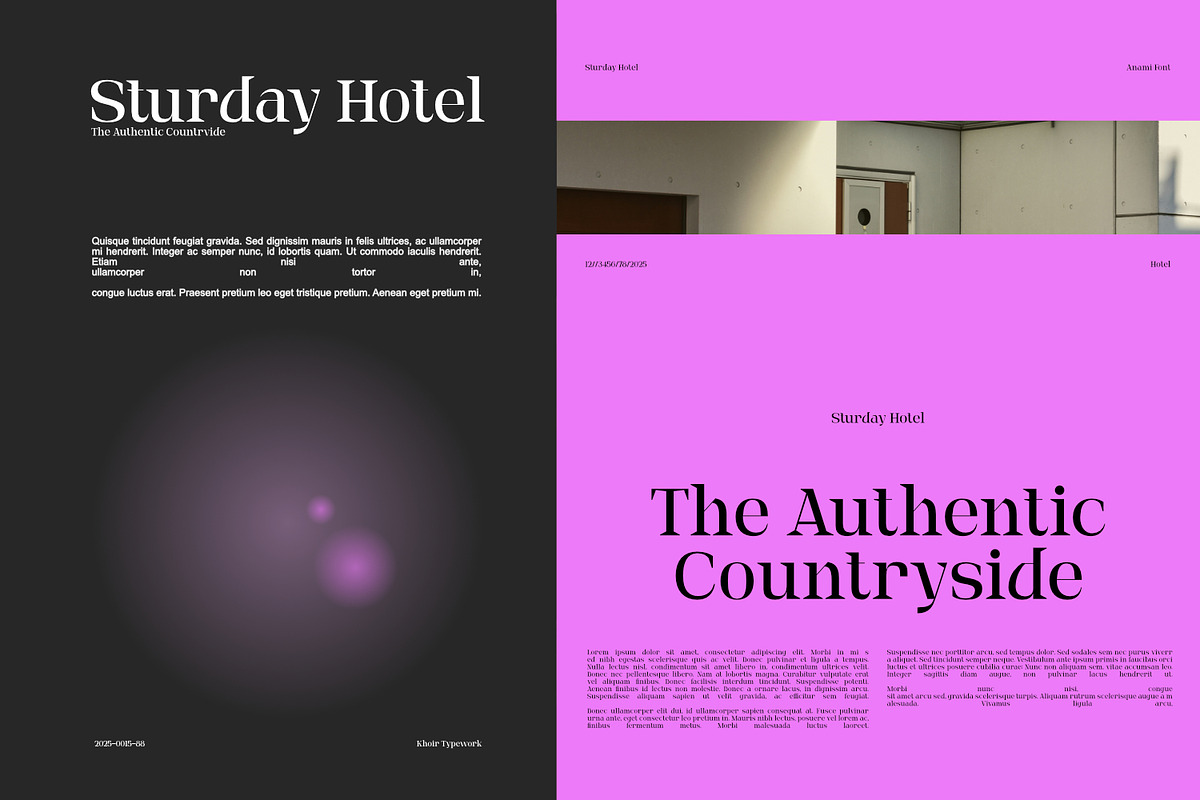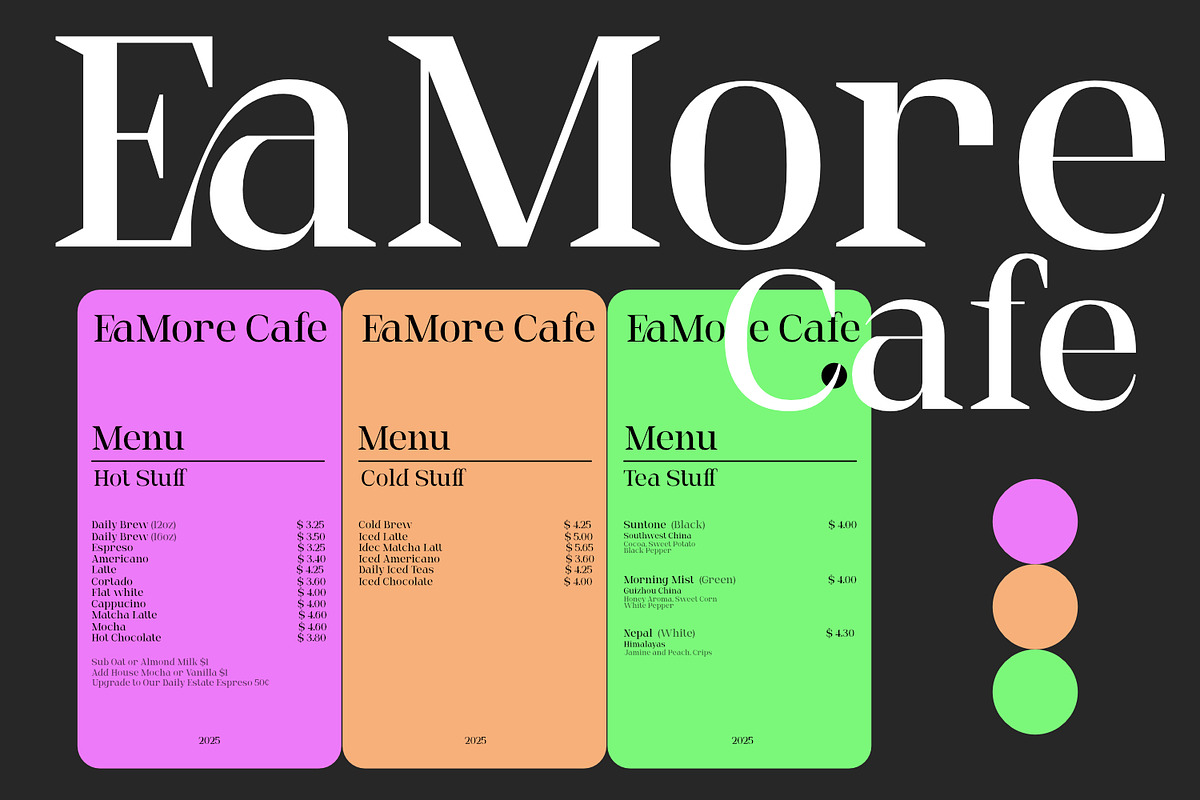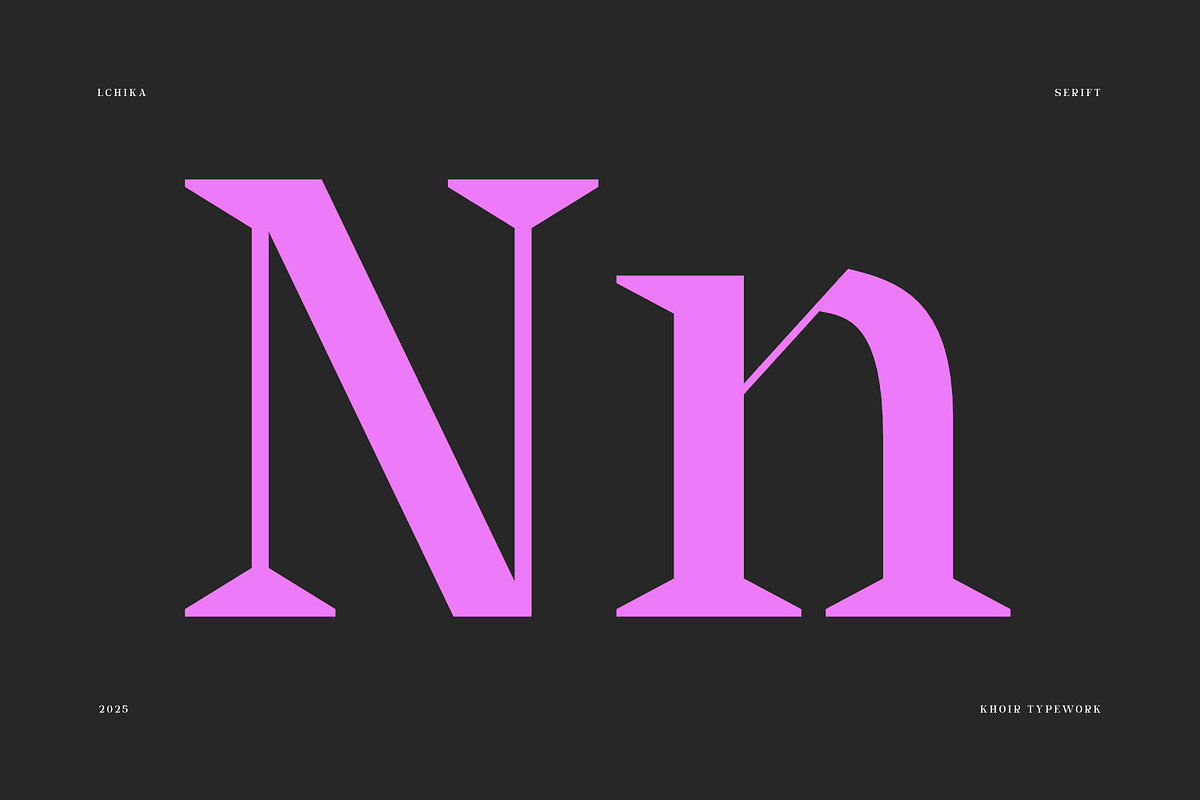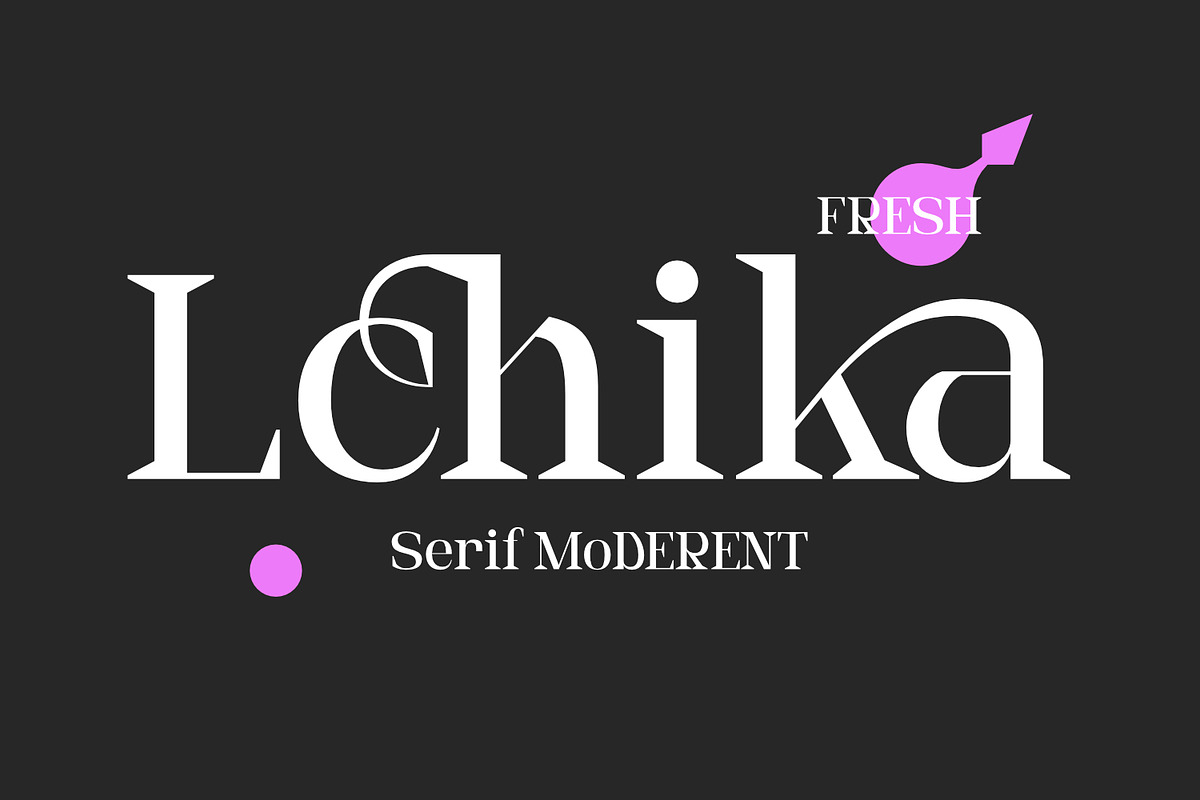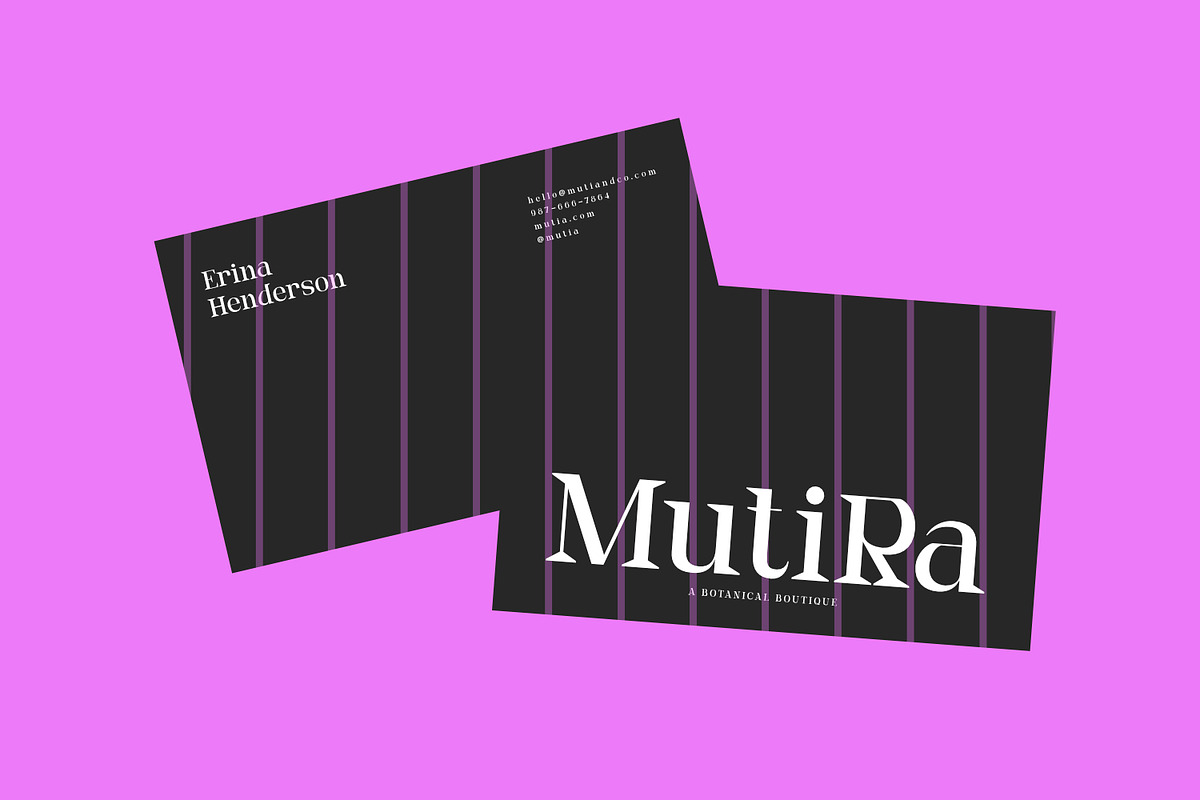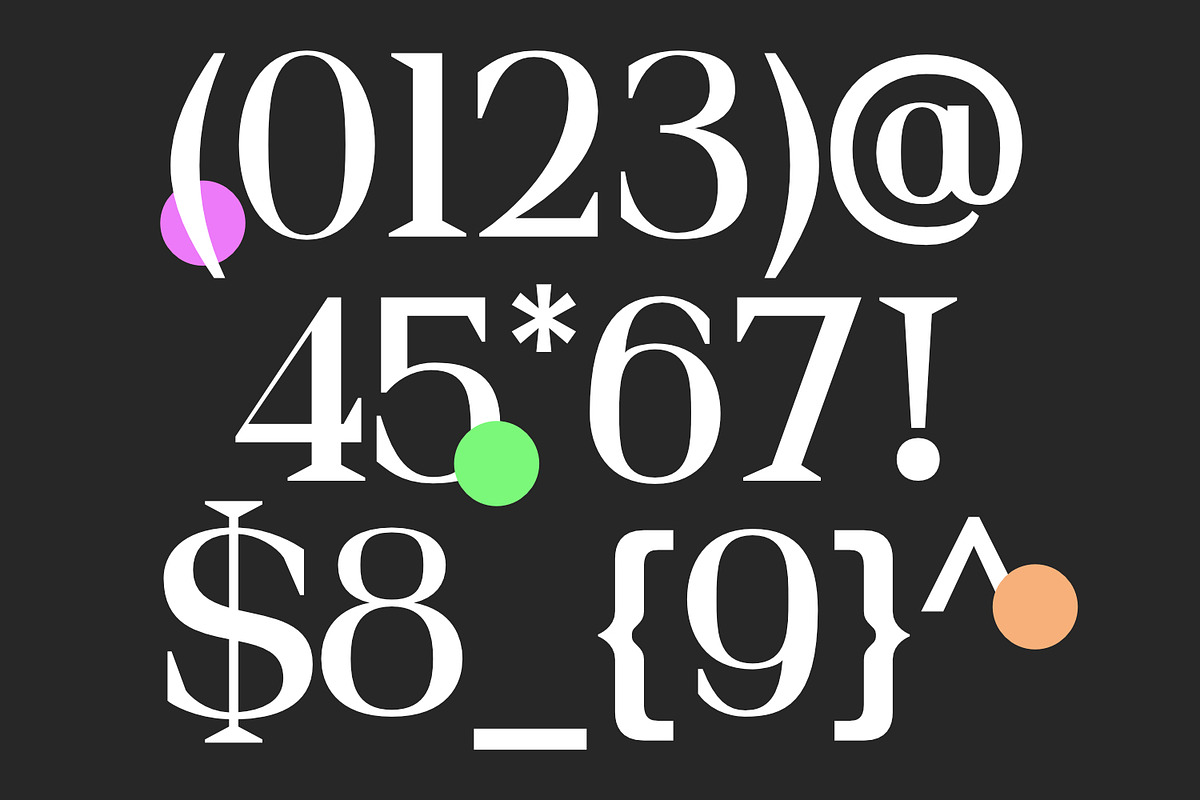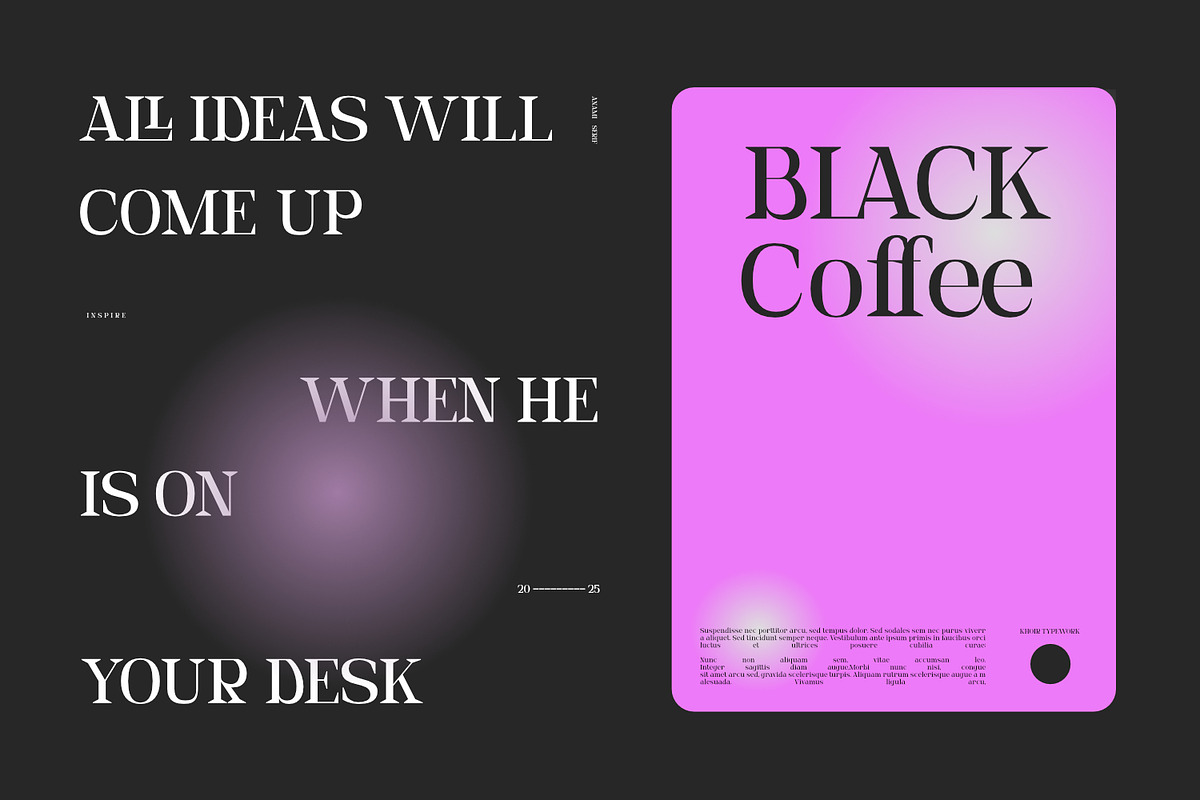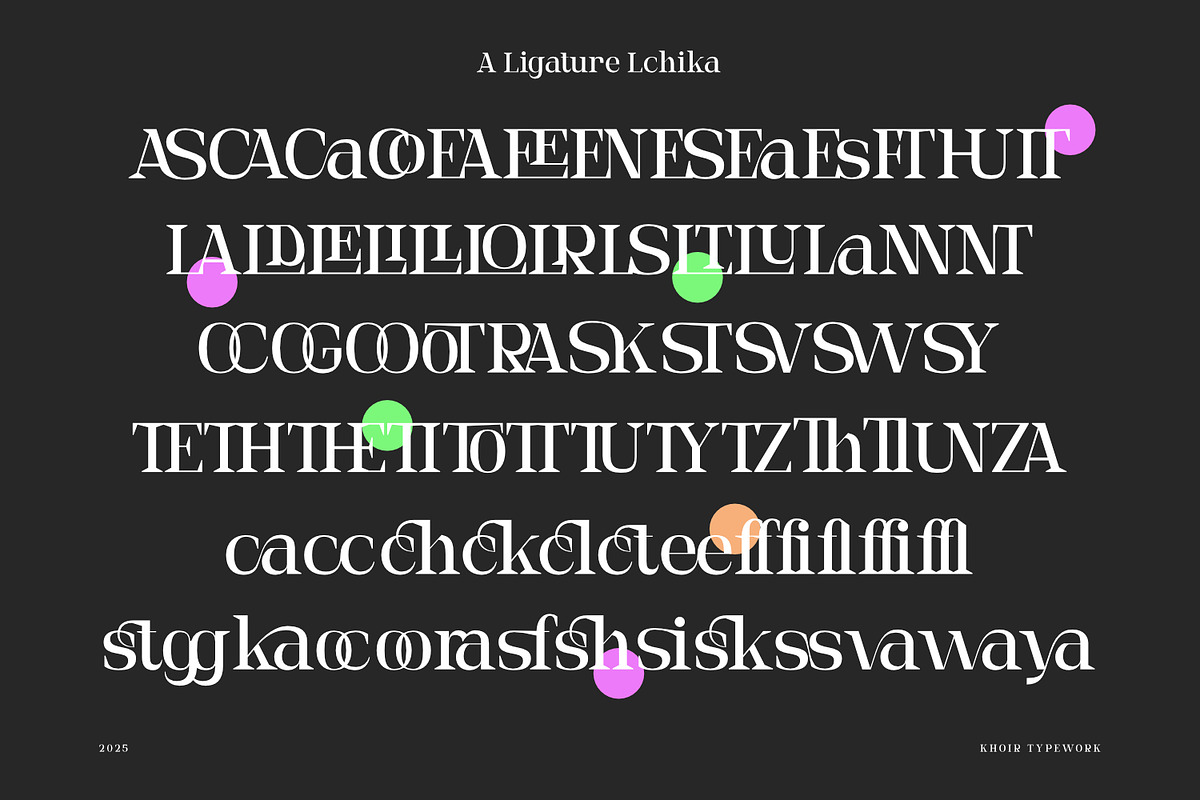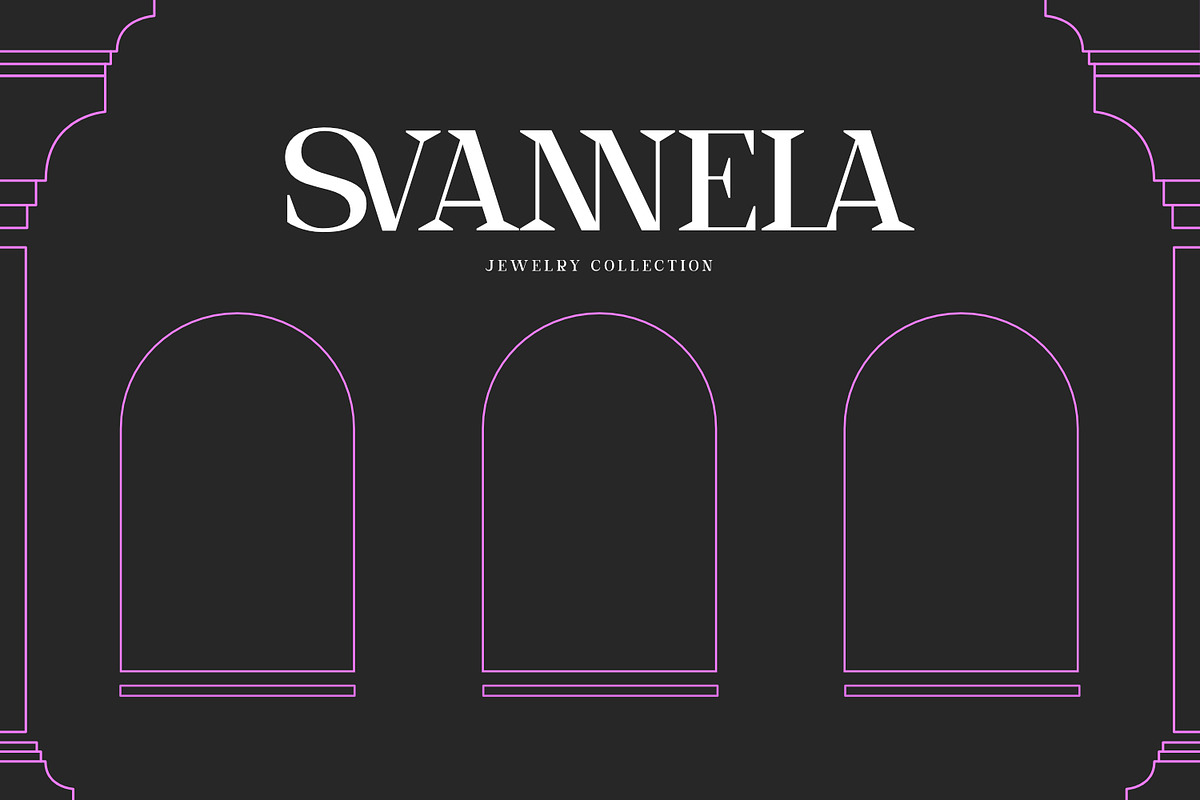
Lchika Serif modern
This modern serif font has a light, clean look, with lots of ligatures and a very distinctive look, yet maintains an attractive and elegant style, making it easy to design with. This font is perfect for your design needs, such as posters, logos, branding, social media, books, magazines, and more.